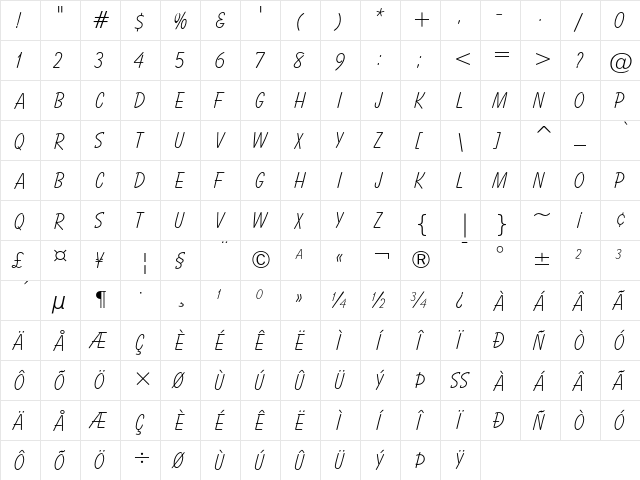
Balloon Light
Design Context for Balloon Typeface
Balloon is a composed and adaptable typeface that performs quietly and consistently across a wide range of design contexts. The delicate stroke weight brings airiness and refinement to layouts.
Pro Tip: Pair Balloon with a font of contrasting weight or personality to build a more expressive typographic hierarchy.